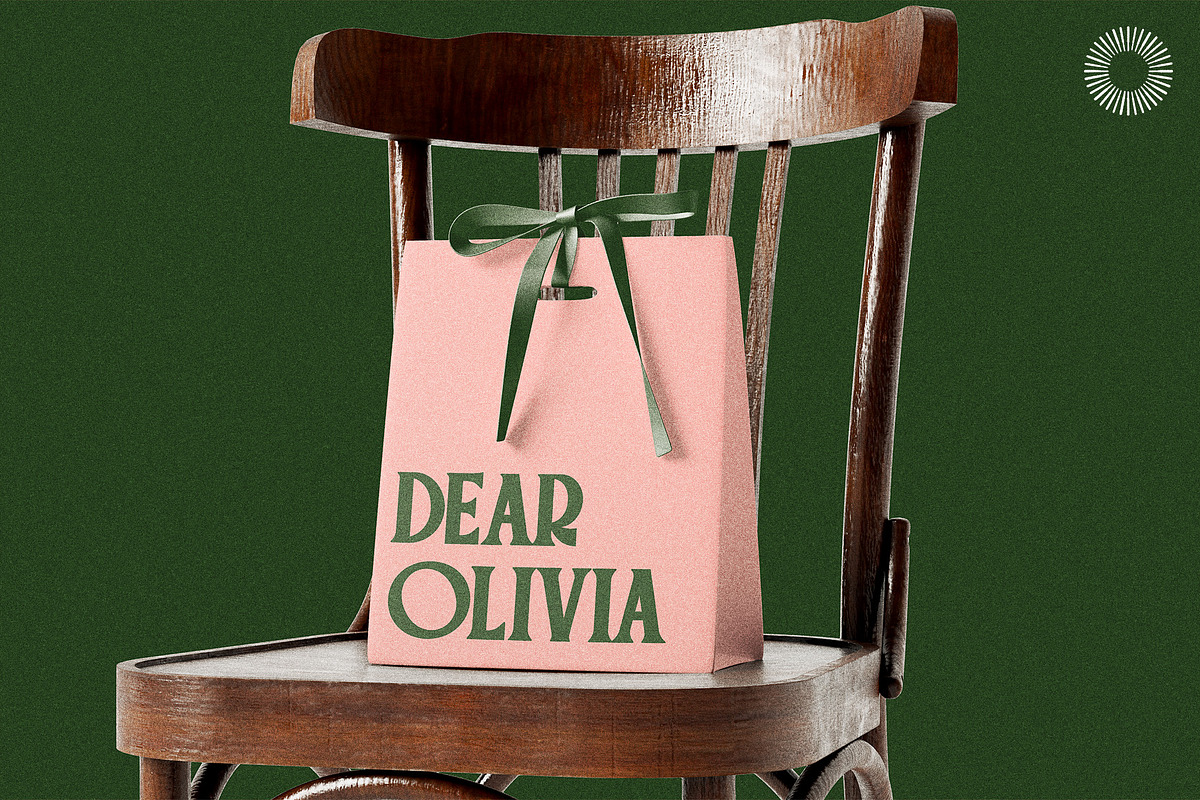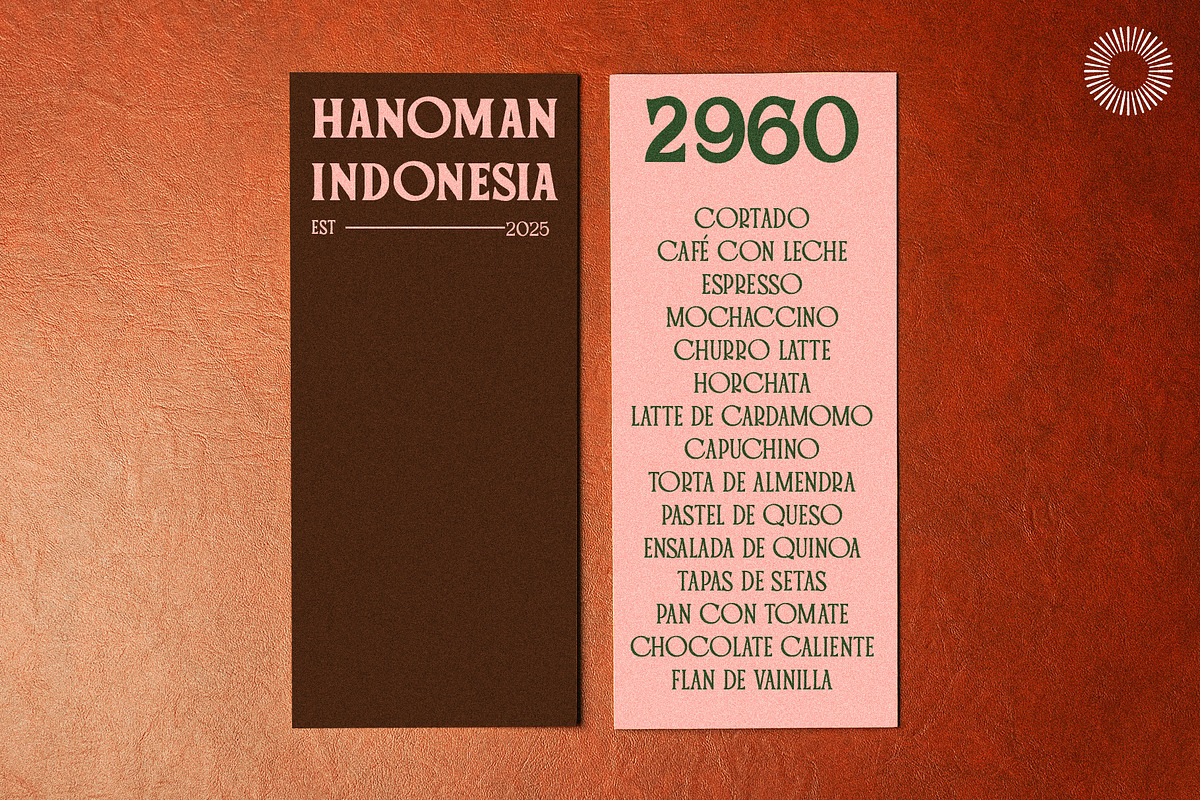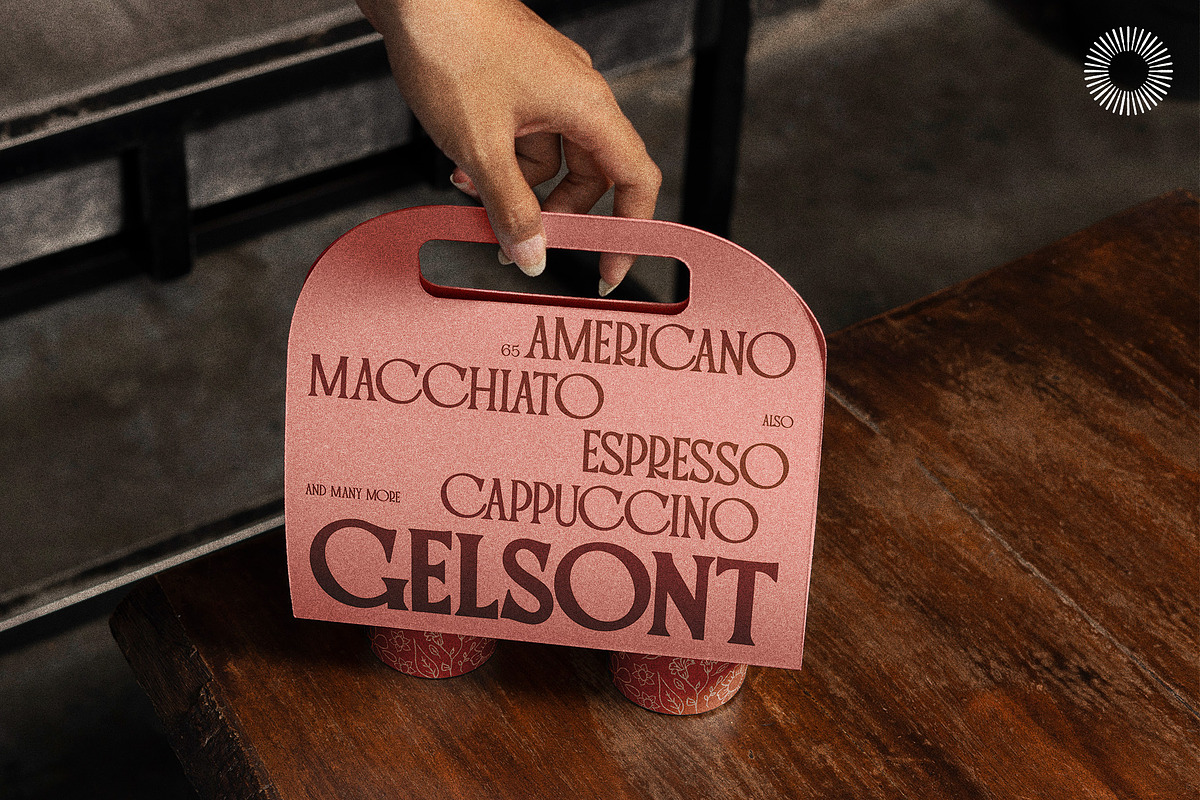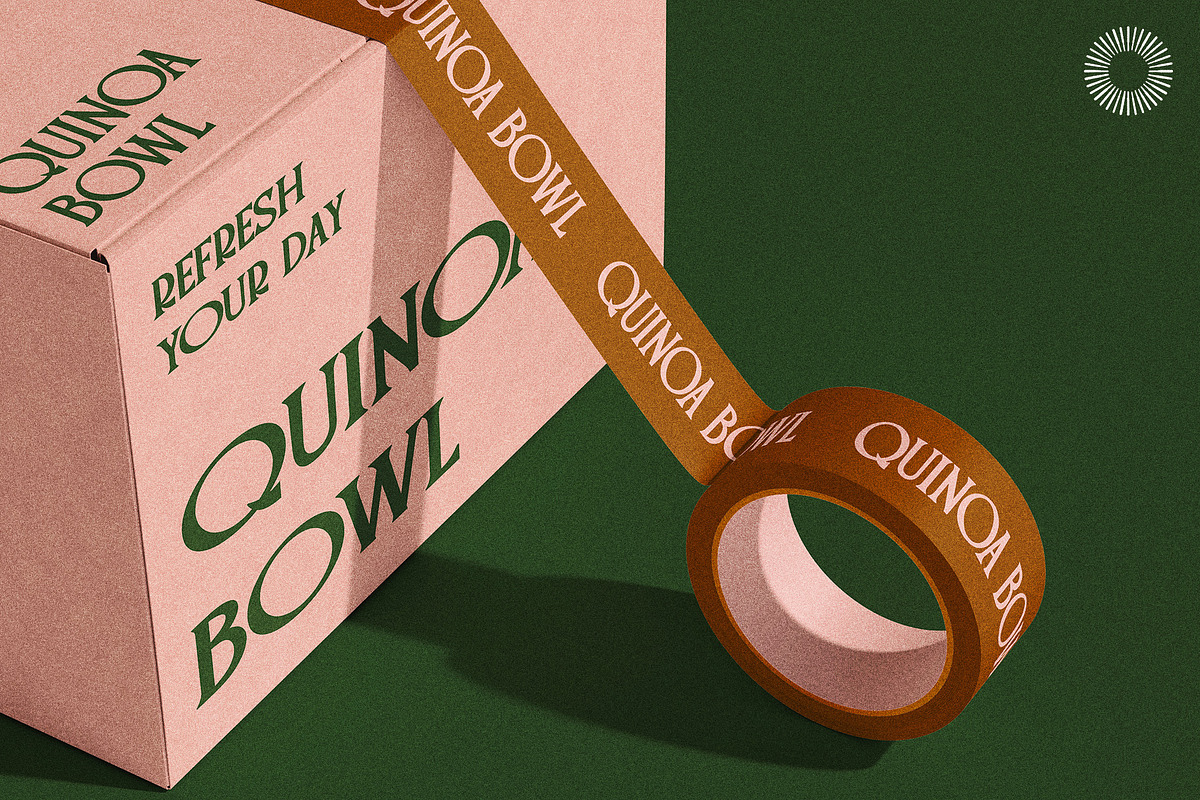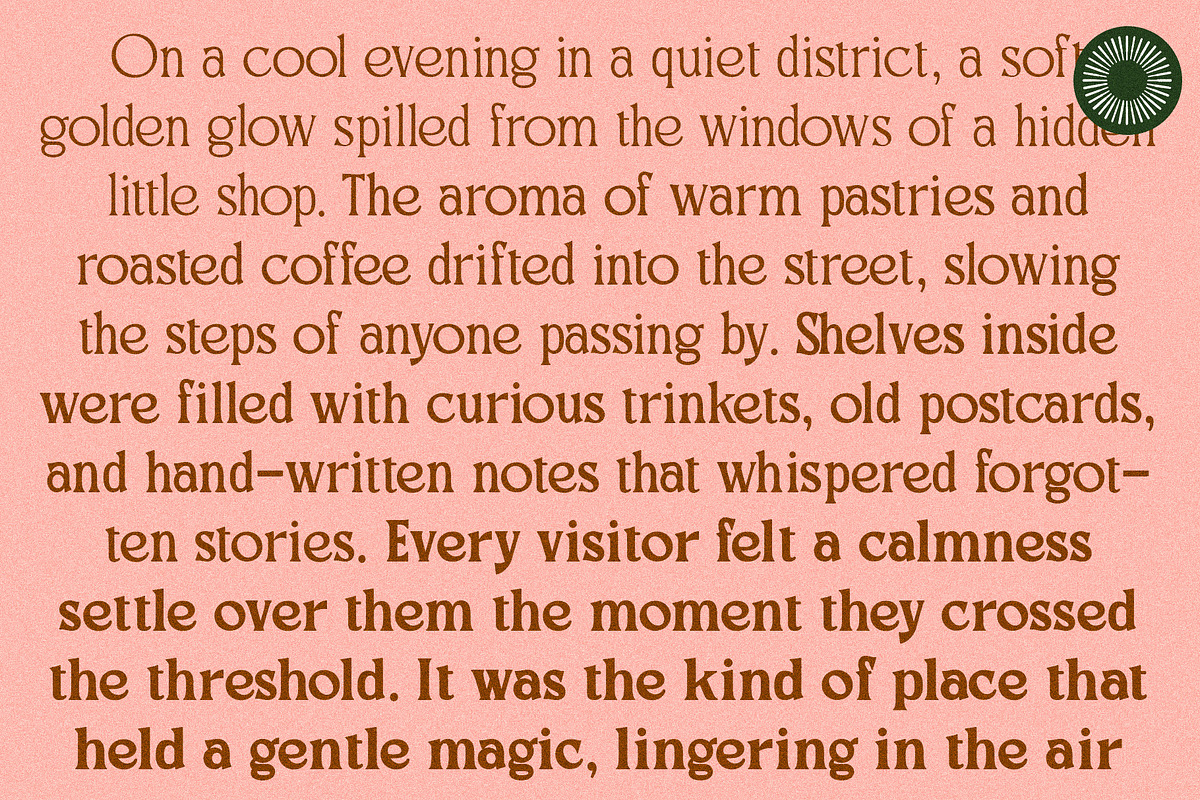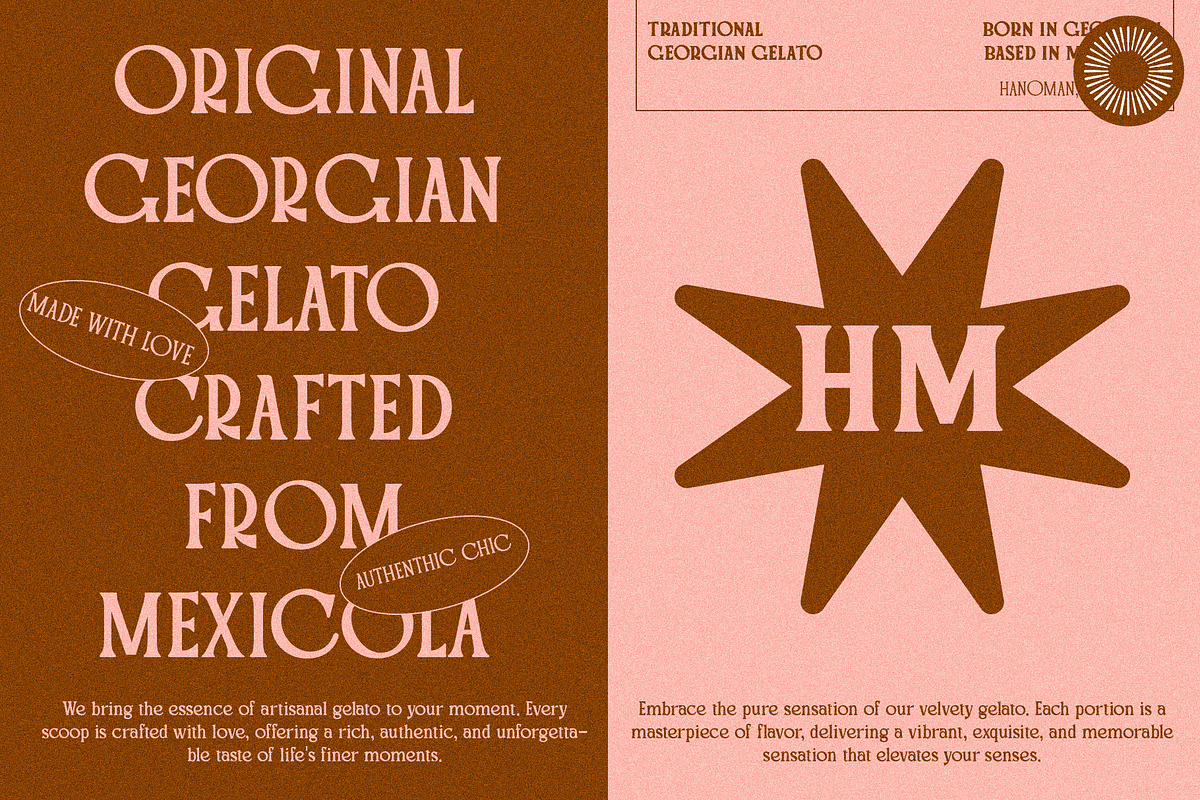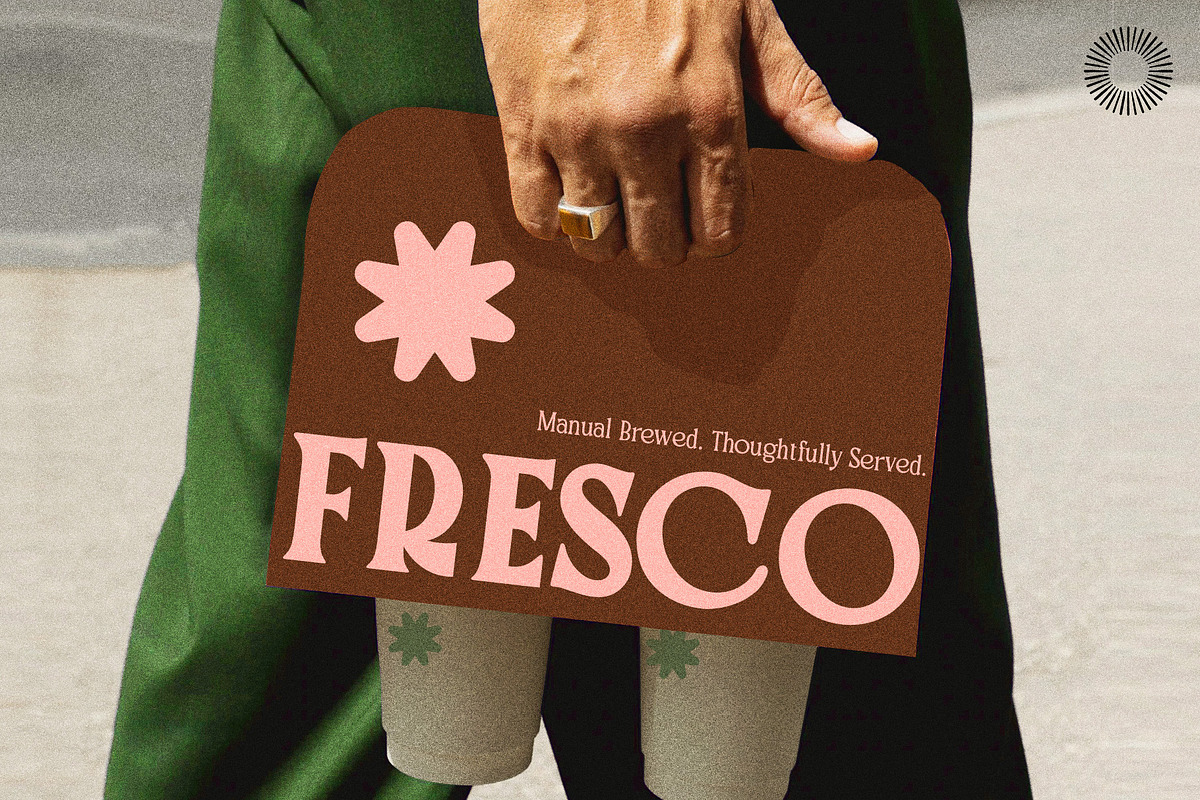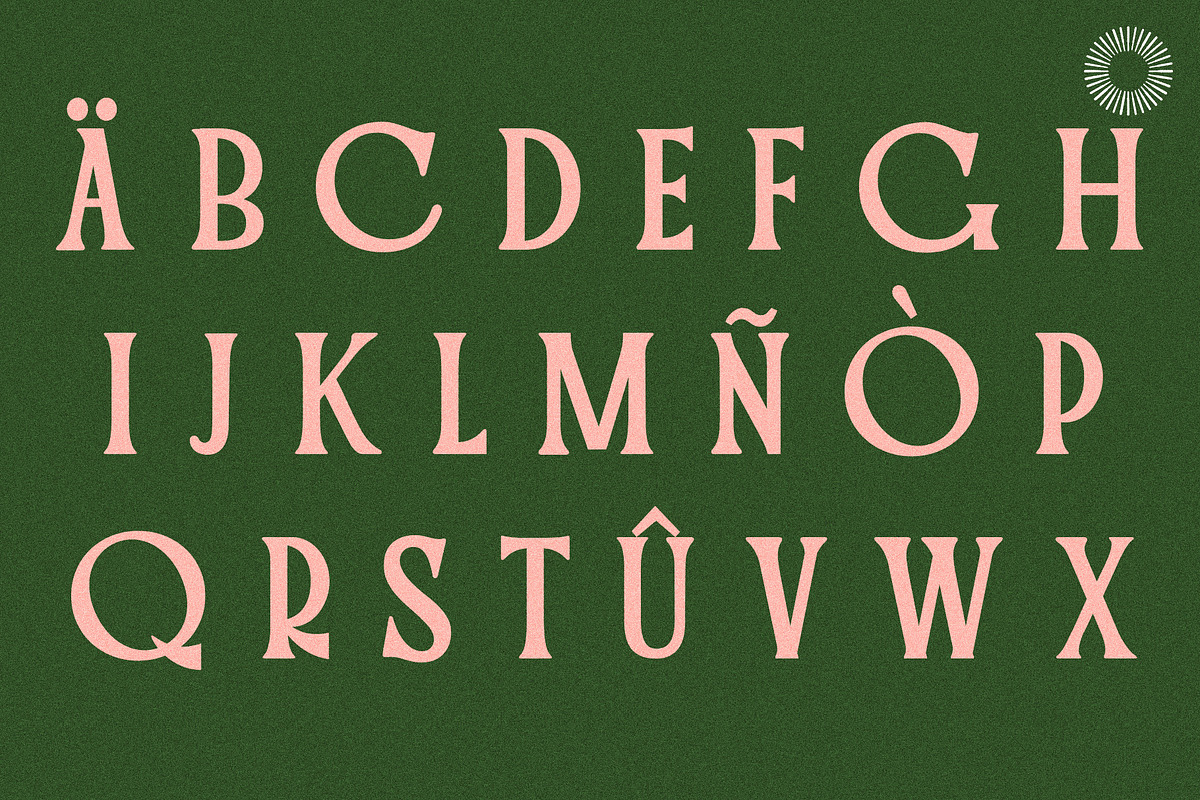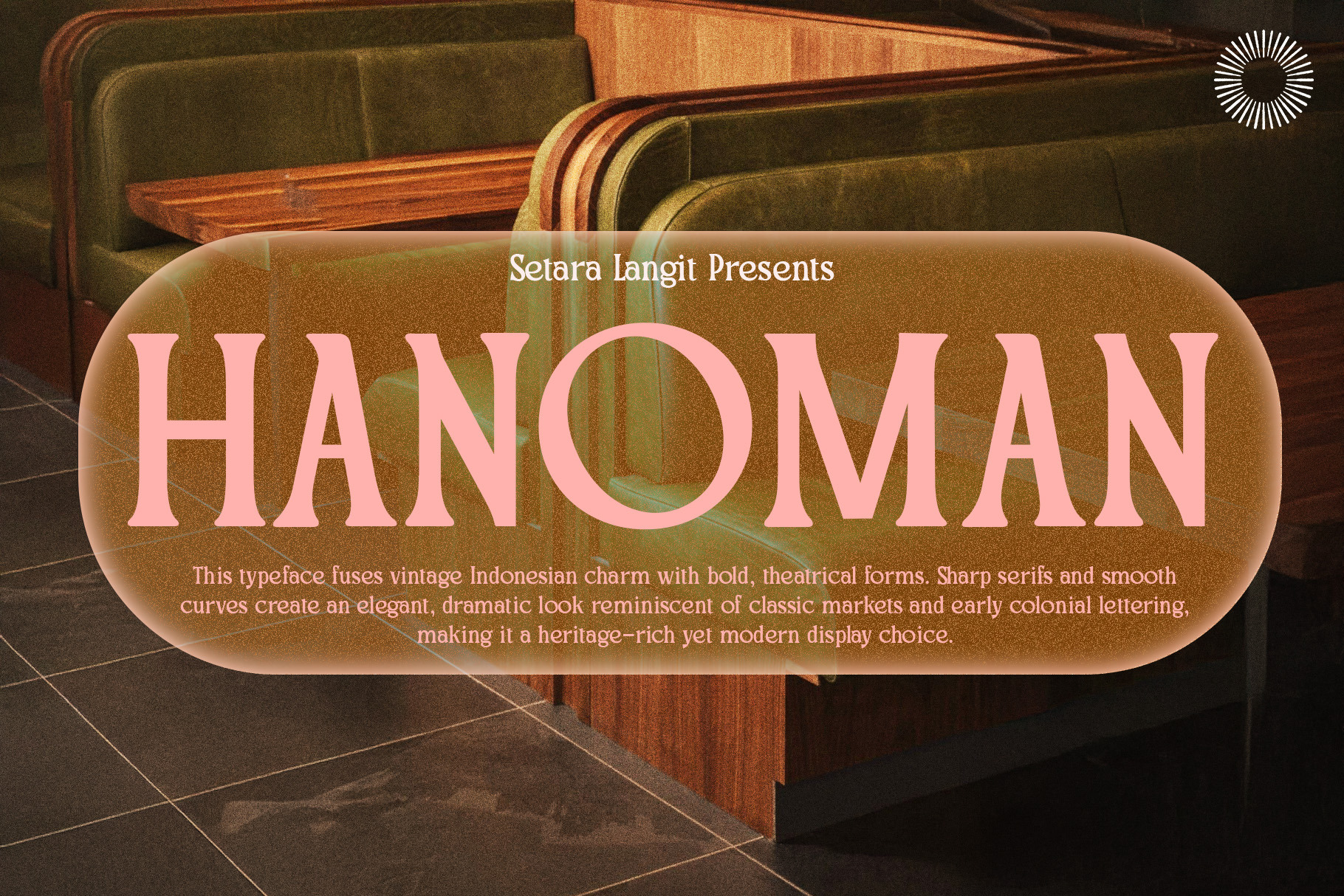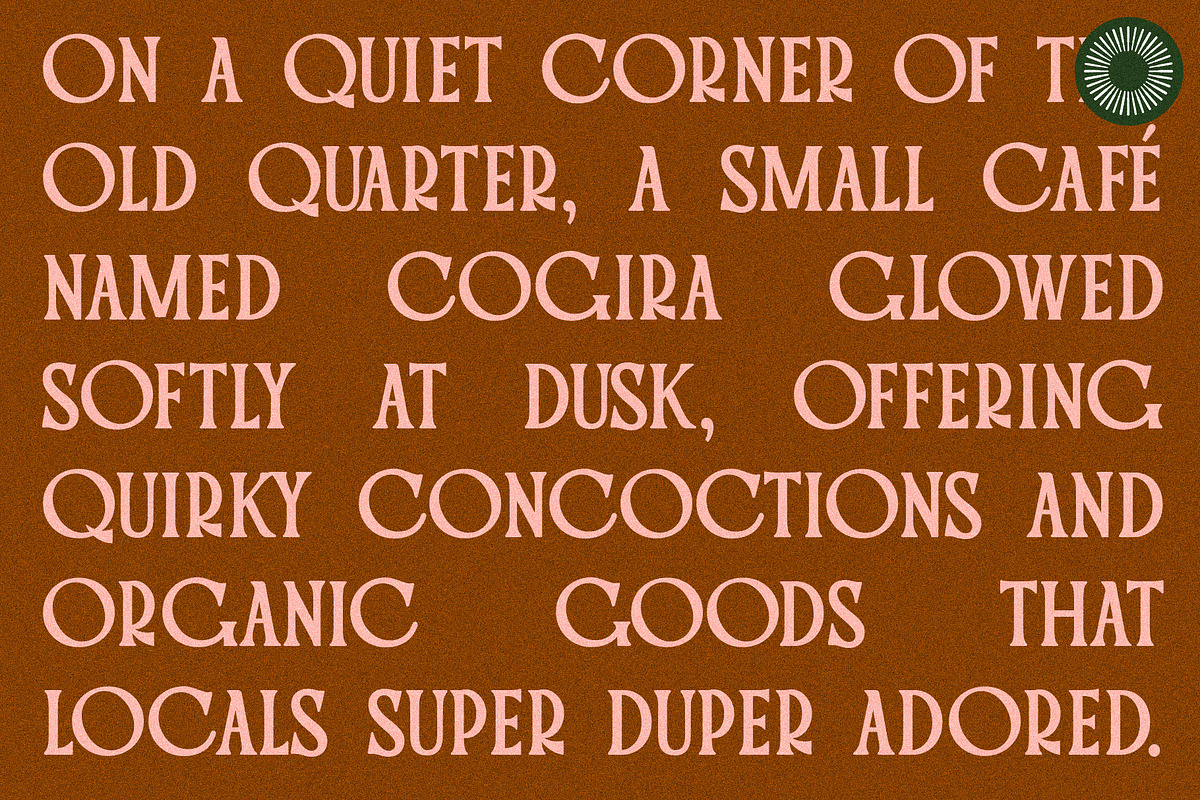
Hanoman - Serif Font Family
Hanoman – A Timeless Serif Family with Contemporary Strength Hanoman is a complete serif family designed to balance classic authority and modern refinement. Built with five functional weights—Thin, Light, Regular, Bold, and Black—Hanoman delivers flexibility for both delicate editorial layouts and powerful visual identities. Its character is rooted in traditional serif foundations, yet shaped with confident proportions that feel current, expressive, and versatile. What makes Hanoman stand out is not ornamentation, but structure. The letterforms are deliberate and stable, with strong vertical stress, balanced contrast, and firm terminals. This gives Hanoman a trustworthy, premium personality—ideal for brands that want to look established without appearing dated. Unlike decorative serif fonts that only work in short headlines, Hanoman is designed to perform across real-world design scenarios: from long editorial texts to high-impact branding systems.
Why Hanoman Works Across Many Design Fields Hanoman isn’t a novelty font—it’s a workhorse serif family. The full range of weights allows you to build visual hierarchy without switching typefaces. Thin and Light are excellent for elegant headlines and fashion editorials, while Regular provides clean readability for articles and brand systems. Bold and Black deliver commanding impact for posters, packaging, and logo marks. This makes Hanoman especially strong for: • Brands that need flexibility across platforms • Designers who want one serif family for multiple jobs • Projects that require both emotion and authority
Ideal Use Cases • Branding & Logo Design – luxury brands, boutique labels, wellness, fashion, heritage-inspired brands • Editorial & Publishing – magazines, books, journals, long-form layouts • Packaging Design – cosmetic, food, artisan, lifestyle products • Posters & Advertising – bold promotional displays • Web & Digital Design – sophisticated websites, landing pages, portfolios • Social Media & Marketing – premium visual identity systems
Design Character • Elegant without being fragile • Strong without being aggressive • Classic without feeling old • Modern without losing soul Hanoman carries a quiet confidence—it doesn’t scream for attention, but it commands it naturally.
Perfect Pairings Hanoman pairs beautifully with: • Clean modern sans-serifs for UI and digital layouts • Minimal script fonts for brand accents • Neutral grotesques for contrast in editorial systems Use Hanoman as your core identity font, and let your supporting fonts play around it.